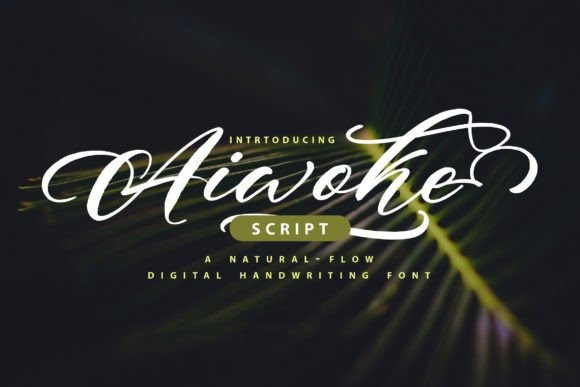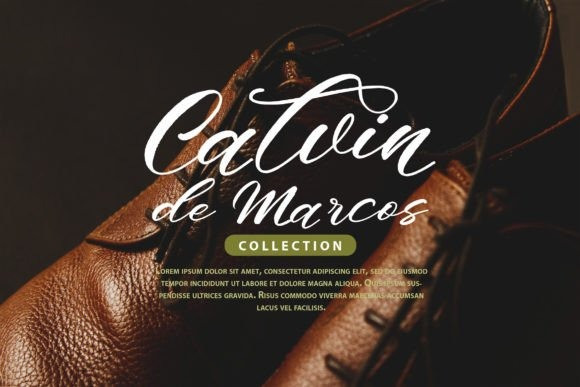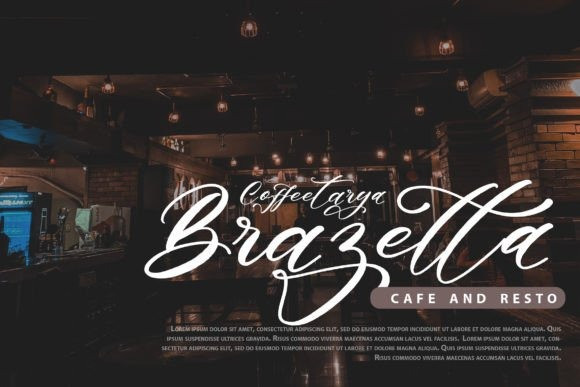
Aiwoke Font
Aiwoke is a bold and exquisite script font. Stylish, graceful, and flowing, this font will definitely elevate the look of any of your beautiful creations while keeping them grounded and natural.